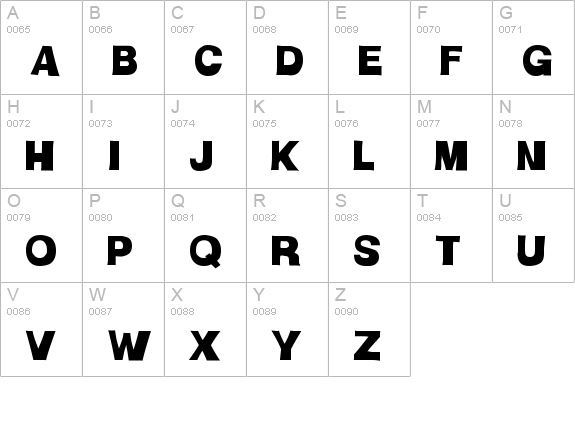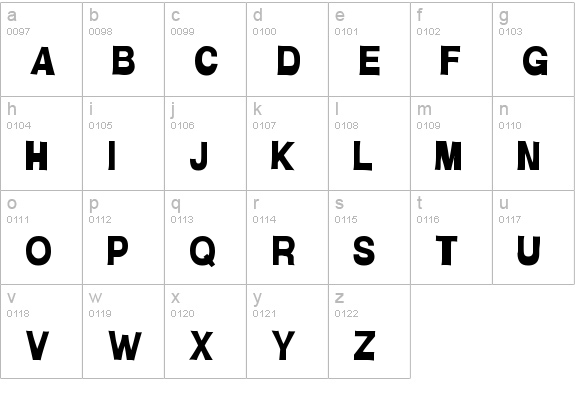
H-Man Font Details
Introducing H-Man font, a modern and stylish typeface that is perfect for a wide range of design projects. This versatile font features a sleek and contemporary design that will make your text stand out. With its clean lines and bold strokes, H-Man font is sure to make a statement in any project. What's even better is that H-Man font is completely free to download! You can easily access this amazing font at FontsMarket.com and start using it in your projects right away. Whether you're designing a poster, creating a website, or working on a branding project, H-Man font will add a touch of sophistication and style to your work. Don't miss out on this fantastic opportunity to elevate your designs with the H-Man font. Download it for free today and see the difference it can make in your projects!